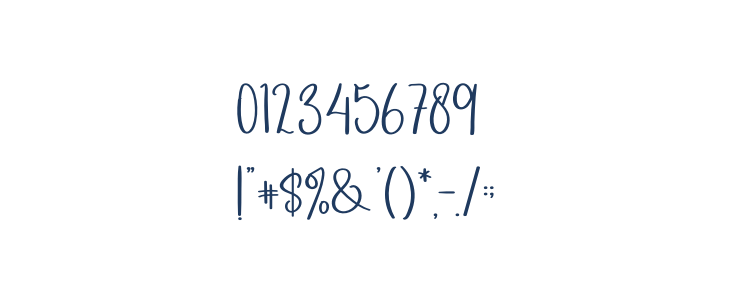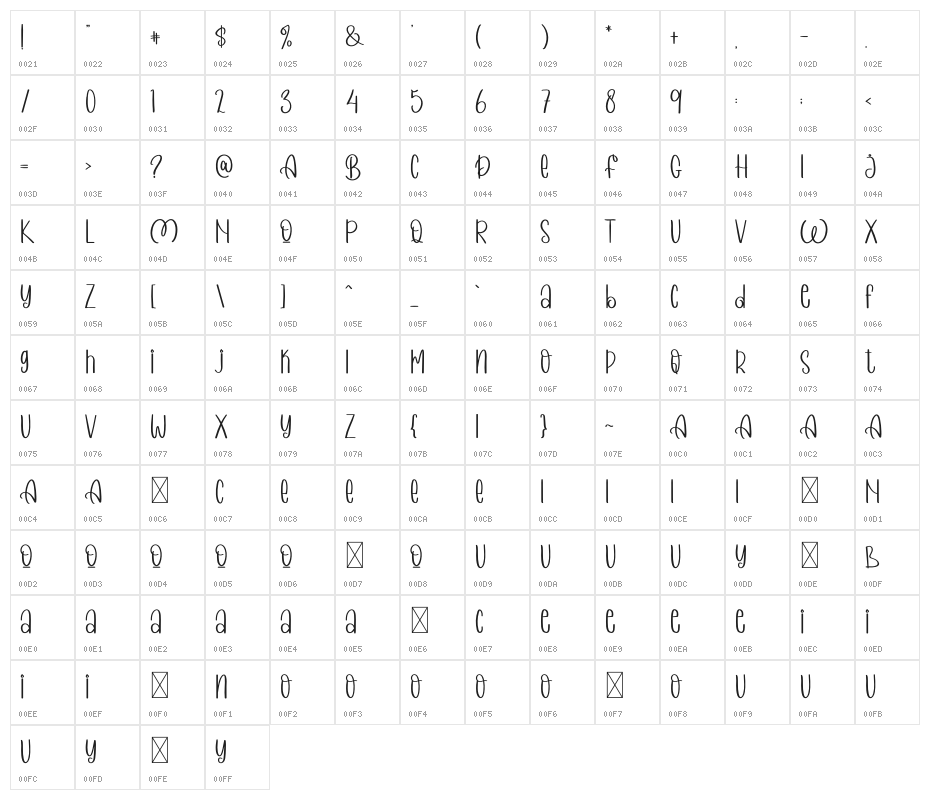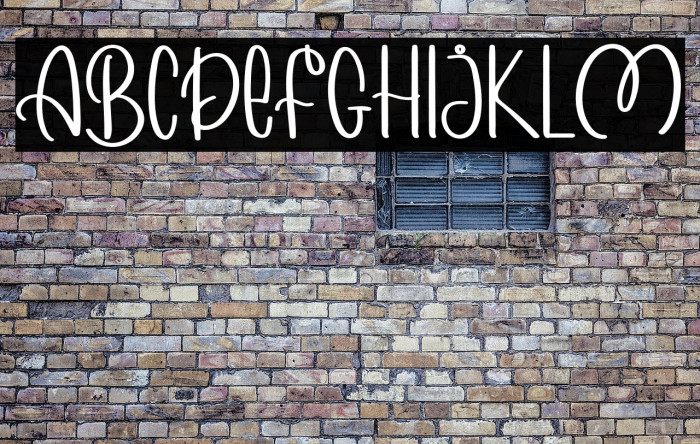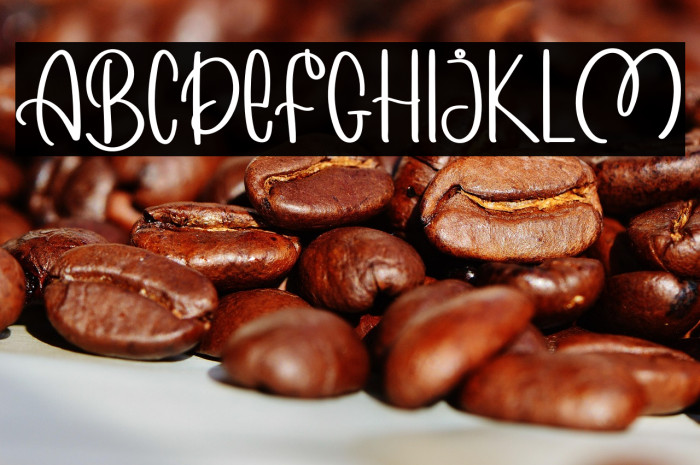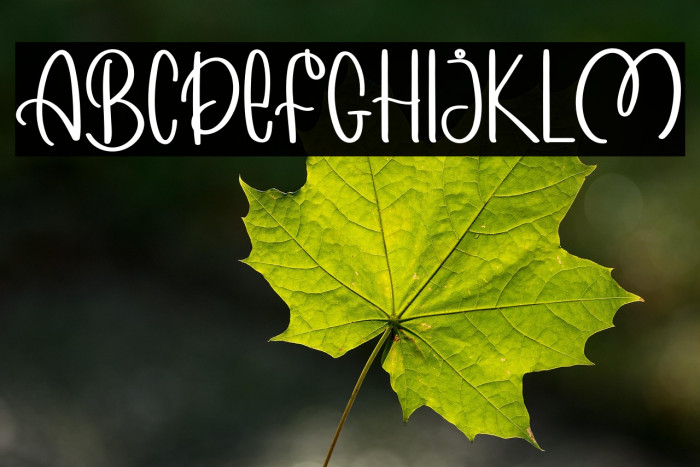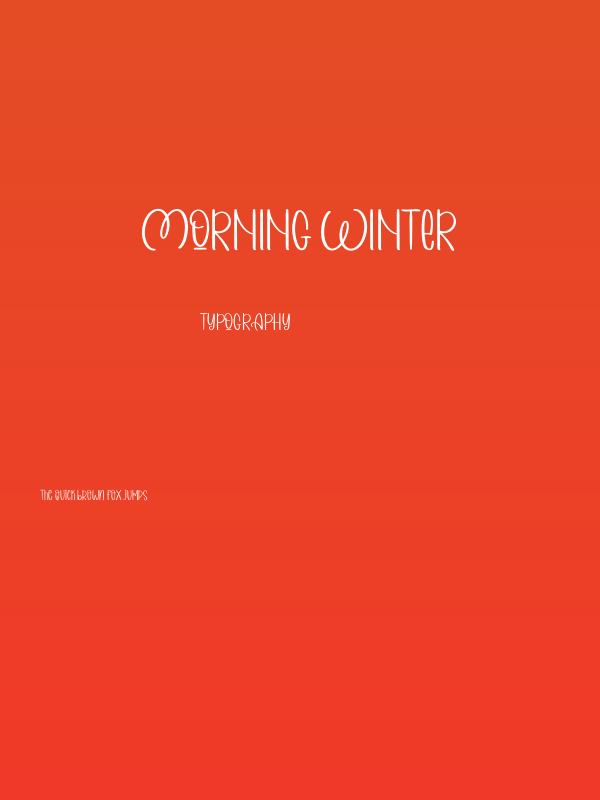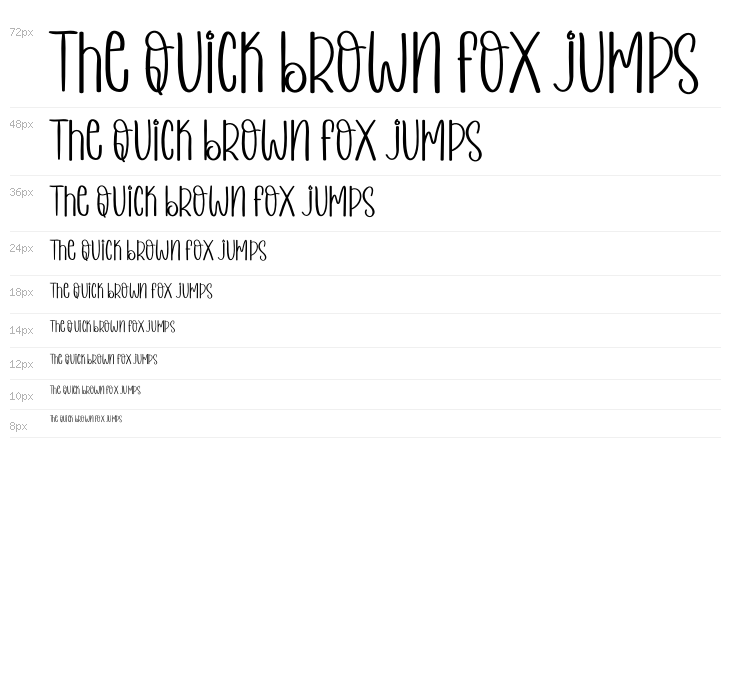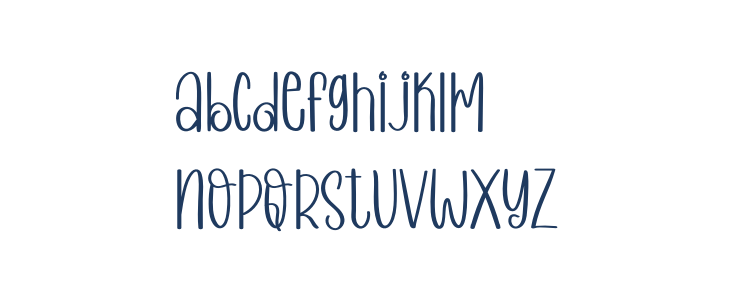
MORNING WINTER Font
MORNING WINTER Description
This font features a playful and whimsical style with a handwritten appearance. The letters are tall and narrow, with a consistent stroke width that gives it a clean and modern look. The uppercase and lowercase letters are distinct, with some characters featuring unique flourishes and loops that add to its charm. The numbers and special characters maintain the same playful aesthetic, making it versatile for various design needs. The overall design is both approachable and stylish, suitable for projects that require a touch of personality and creativity.
| Width | Condensed |
| Use Case | Headlines, Logos, Invitations |
| Proposed Projects | Ideal for greeting cards, invitations, children's books, and playful branding projects. |